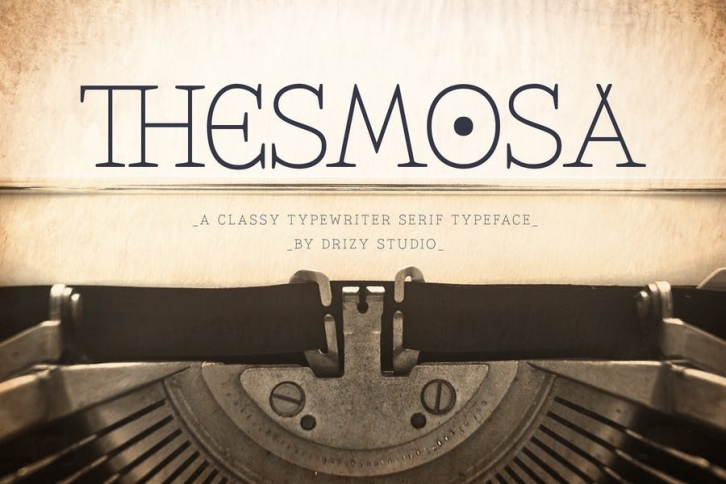
Thesmosa is Classy Typewriter Serif font from Drizy studio. Offering all the basic styles you will need for a successful project.
Thesmosa Features:
Uppercase & Lowercase
Numeral & Punctuation
Multilingual
Ligatures